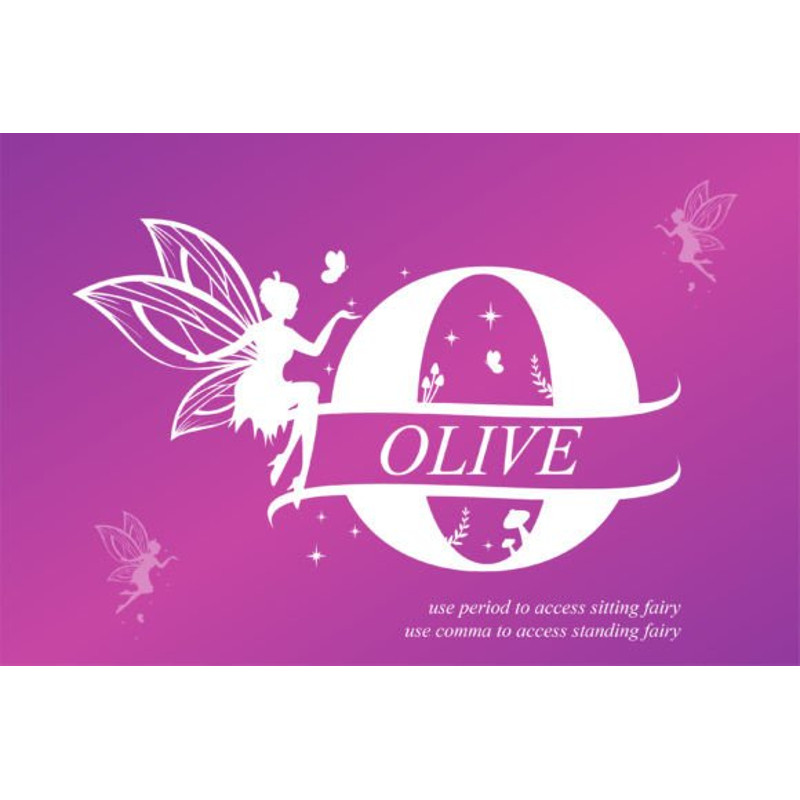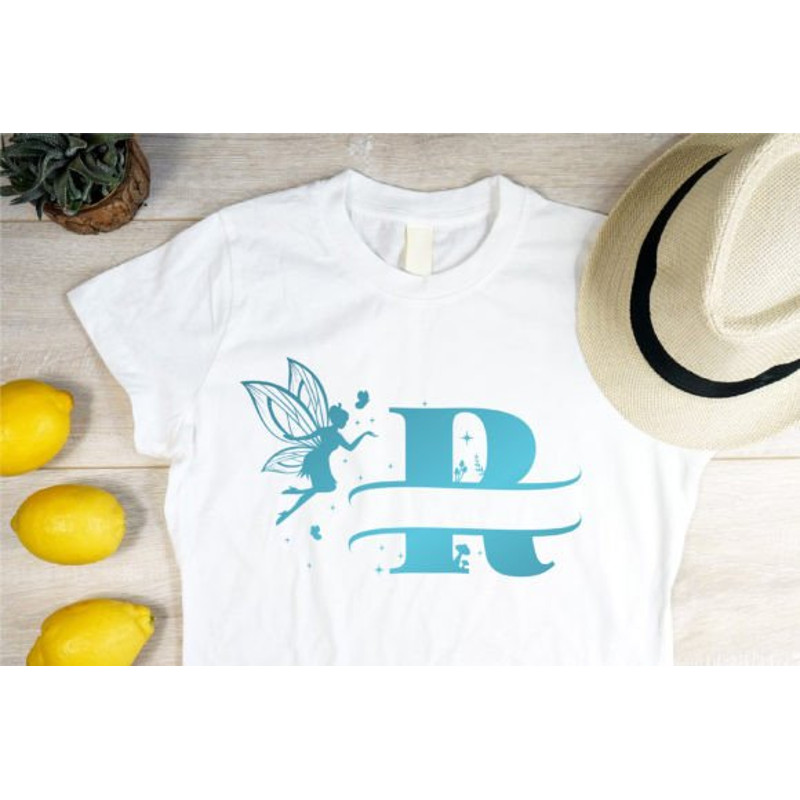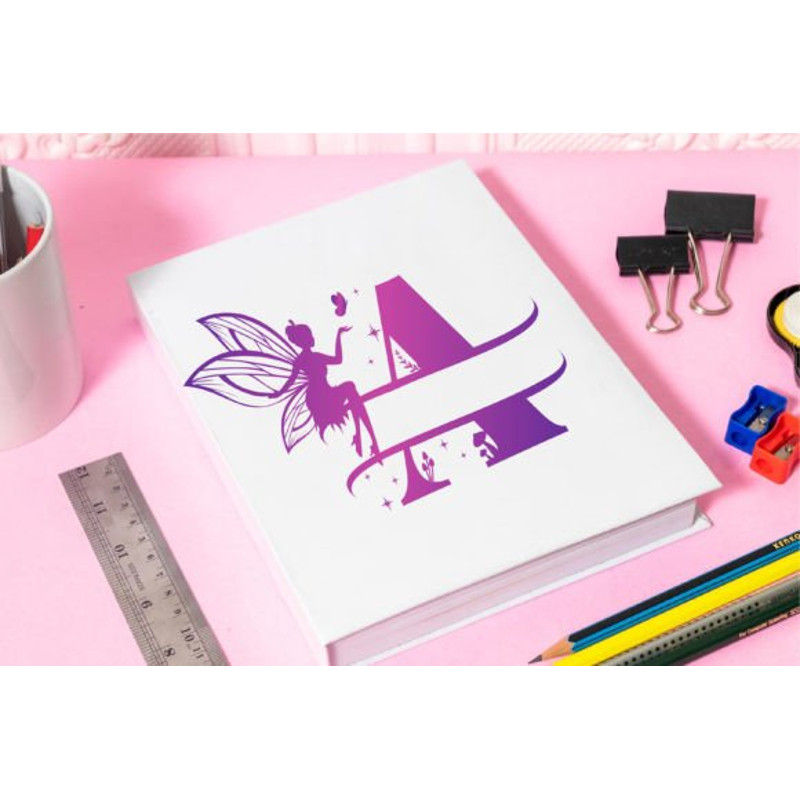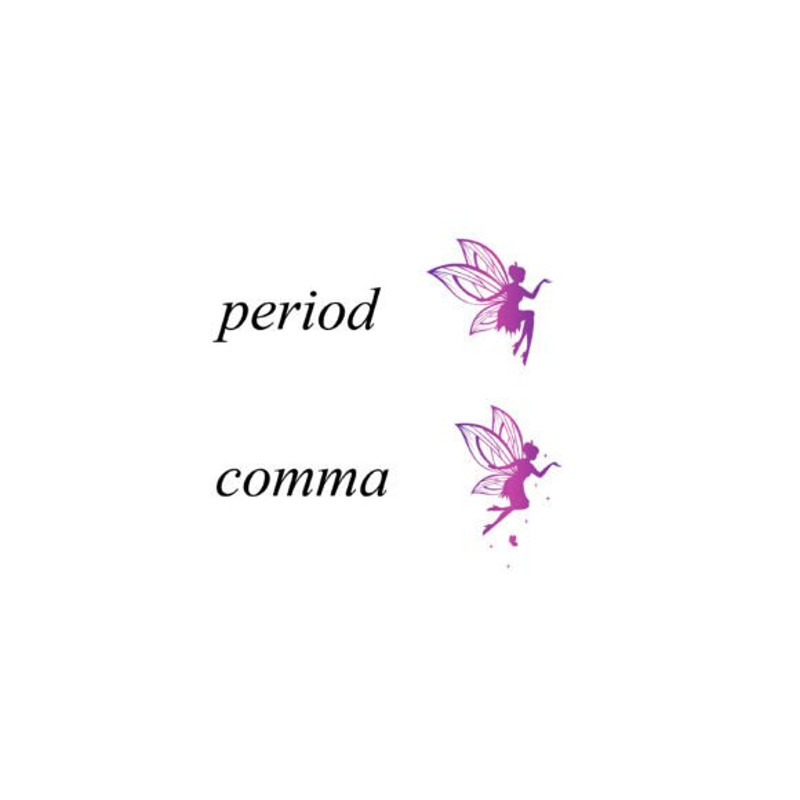
Sweet Fairy Monogram Font
Sweet Fairy Monogram is beautiful and fun decorative font. Fall in love with its authentic feel and use it to create gorgeous design.